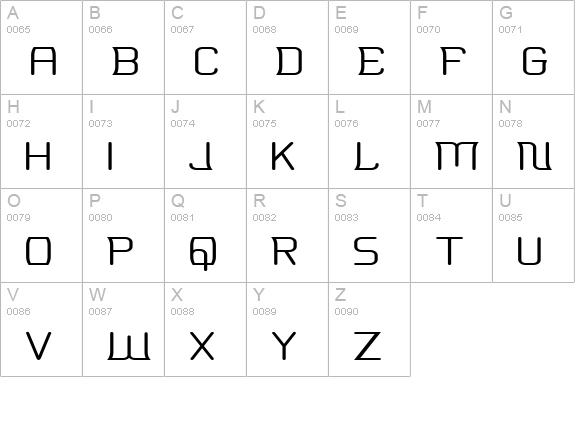
Erinal Wide is a distinctive, extended-width variant in the Erinal typeface family \xE2\x80\x94 well suited to design and typography projects.
Erinal Wide font is a sleek and modern typeface that exudes sophistication and style. With its wide letterforms and clean lines, this font is perfect for creating eye-catching designs for various projects. Whether you're working on branding, advertising, or any other creative endeavor, Erinal Wide font will elevate your work to the next level. The best part about Erinal Wide font is that it is completely free! You can easily download this versatile font from FontsMarket.com and use it in your personal and commercial projects without any restrictions. Don't miss out on the opportunity to add this stunning font to your collection today!